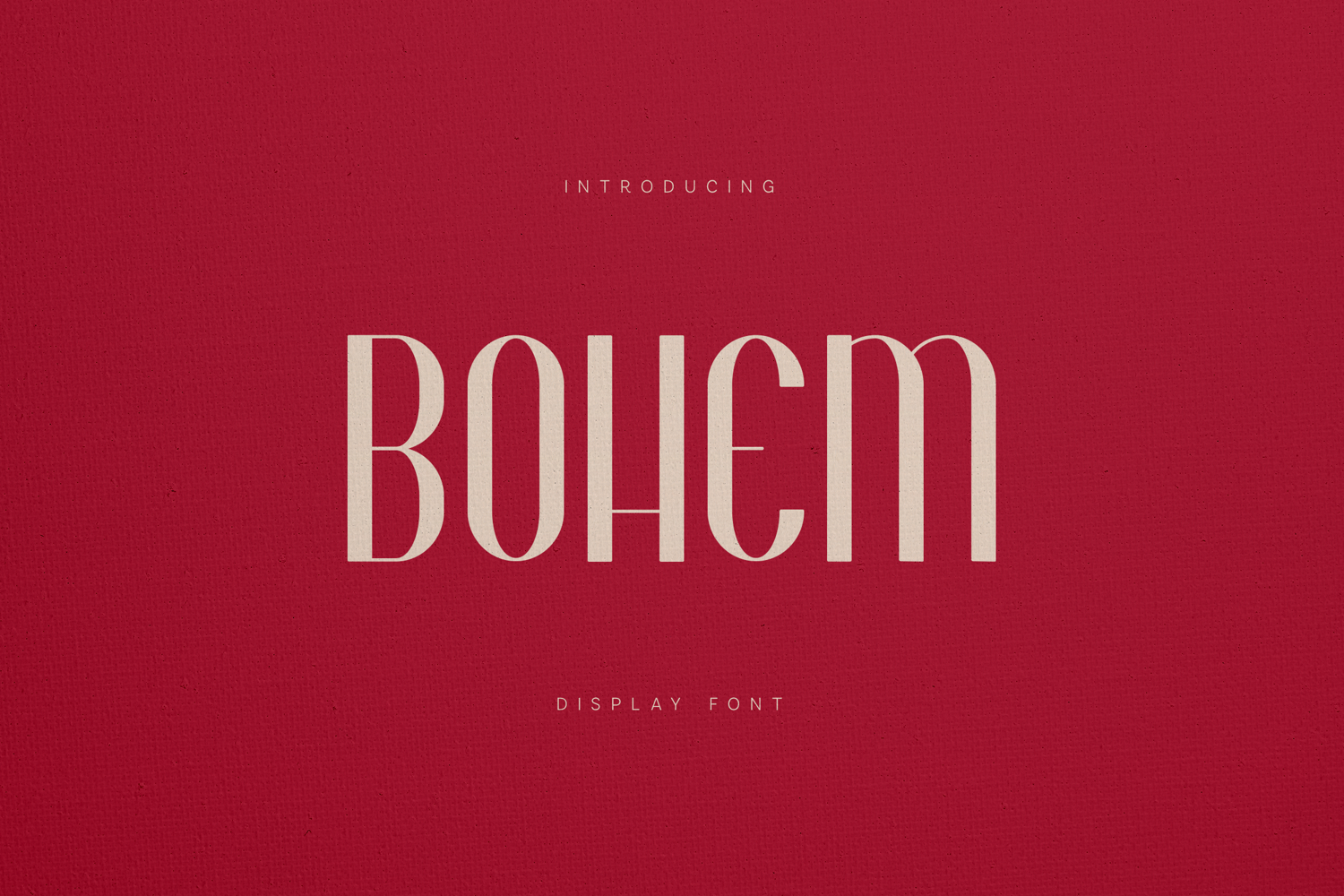
Bohem Elegant Art Deco Display Font
Bohem is an elegant Art Deco–inspired display font that blends vintage sophistication with modern refinement. Featuring tall proportions, smooth curves, and delicate contrast, Bohem is designed to bring a timeless, cinematic feel to high-end typography projects.
Perfectly suited for posters, fashion branding, editorial layouts, packaging, logos, and luxury visuals, this font evokes classic elegance while remaining clean and contemporary. Its distinctive letterforms make headlines and titles stand out without overwhelming the composition.
Bohem includes extensive multilingual support, uppercase and lowercase characters, numerals, and essential punctuation, making it a versatile choice for both creative and professional design work.
• Art Deco–inspired display style
Ideal for fashion, editorial, branding, posters, book covers, and premium design projects.